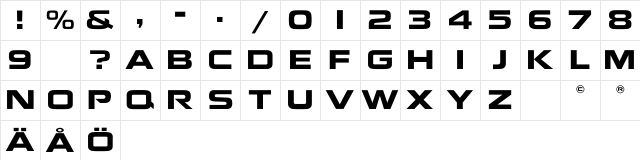
NokianvirallinenkirjasinREGULAR Free Font
NokianvirallinenkirjasinREGULAR REGULAR
Style: REGULAR
Design Context for NokianvirallinenkirjasinREGULAR
NokianvirallinenkirjasinREGULAR is a composed and adaptable typeface that performs quietly and consistently across a wide range of design contexts.
Pro Tip: Use NokianvirallinenkirjasinREGULAR in both headline and body roles to test its range before committing to a single application.